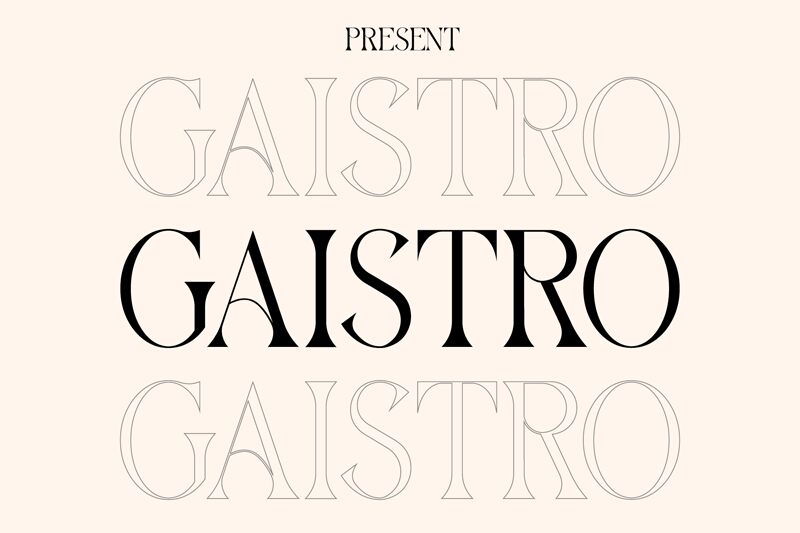
Unveiling Gaistro, a retro serif font meticulously crafted by Maryamtype Studio, where vintage charm meets contemporary finesse. With its semi-light weight and semi-condensed width, Gaistro is a versatile typeface that brings an air of sophistication to any creative canvas. It's the quintessence of elegance with a modern twist-ideal for those who dare to stand out.
This font's allure lies in its potential to transform ordinary designs into extraordinary masterpieces. From the chic allure of luxury branding to the boldness required in book titles or movie posters, Gaistro is designed to make an impact. Imagine fashion magazines where headlines captivate at first glance or clothing brands that exude style through every letter-Gaistro delivers this with effortless grace.
Whether it's invoking nostalgia or embracing trendsetting design, Gaistro promises to infuse your projects with a distinct flair that resonates with audiences across diverse platforms.
GAISTRO Regular
Maryamtype Studio
Rio Anugrah Saputro